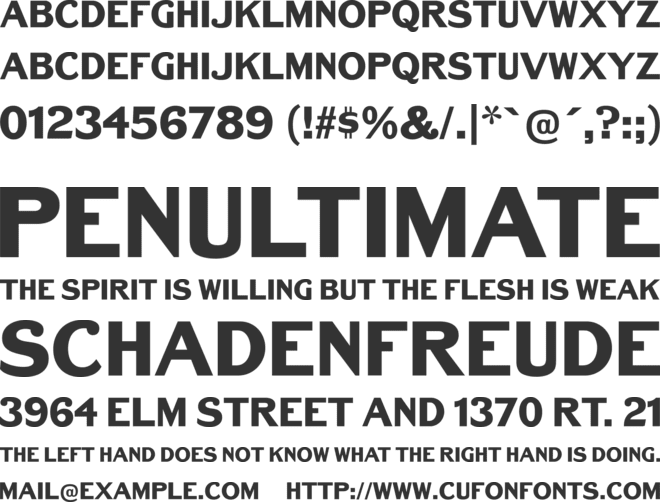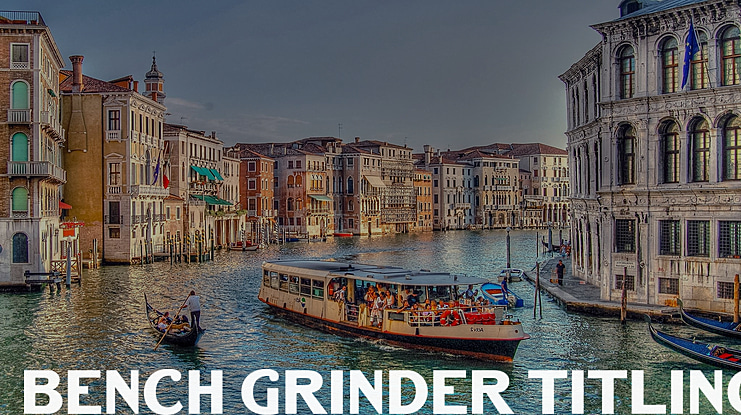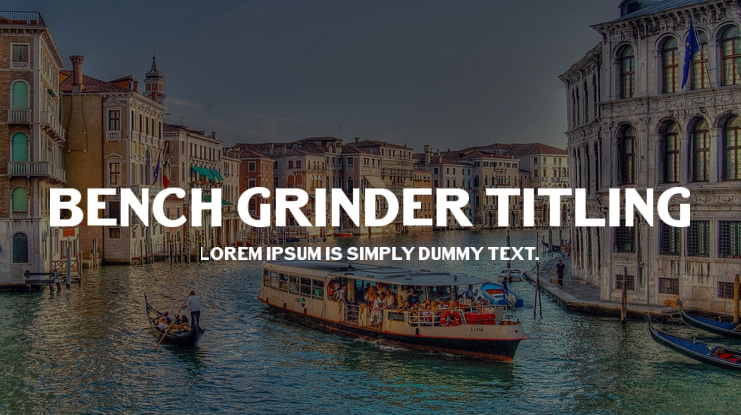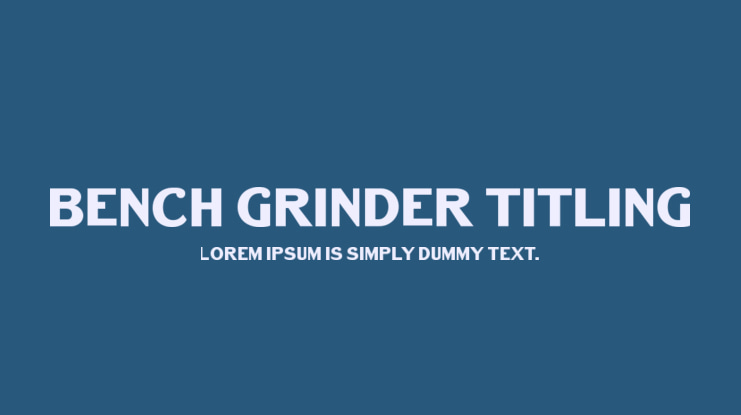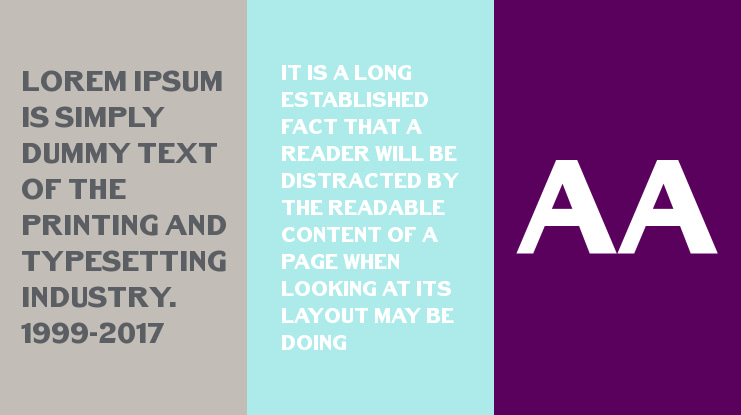
Bench Grinder Titling Font
Bench Grinder was inspired by the letterforms of 19th century metal headline type but without the slab-serifs. The result is a unique display typeface, demented but with a sense of familiarity. For a version with lowercase, check out the regular version of Bench Grinder. typodermicfonts.com/bench-grinder/